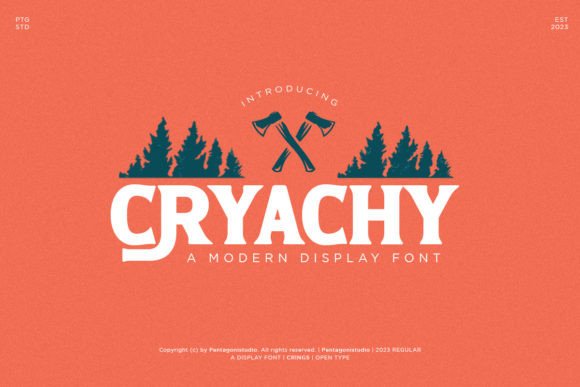
Behold, the Cryachy Font, a visual symphony that captivates the senses and elevates your designs to new heights. This extraordinary display font is a masterpiece of clean lines, geometric shapes, and sharp angles, exuding a bold and edgy aura that demands attention.
With Cryachy, your branding, advertising, and social media graphics will take on a new dimension of sophistication and impact. Its striking presence will leave an indelible mark on your audience, ensuring your message resonates with power and clarity.
Cryachy is more than just a font; it's an artistic expression that speaks to the modern spirit of design. Its contemporary aesthetic perfectly complements today's cutting-edge trends, adding an instant touch of style and innovation to your creative projects.
Whether you're a seasoned designer or a creative enthusiast, Cryachy is the perfect tool to unleash your imagination. Its versatility knows no bounds, allowing you to effortlessly create stunning logos, eye-catching headlines, captivating posters, and social media graphics that will leave your audience spellbound.
Embrace the transformative power of Cryachy and witness the remarkable difference it makes to your designs. Step into the spotlight and let your creativity soar to new heights with this extraordinary display font. Experience the Cryachy revolution today!